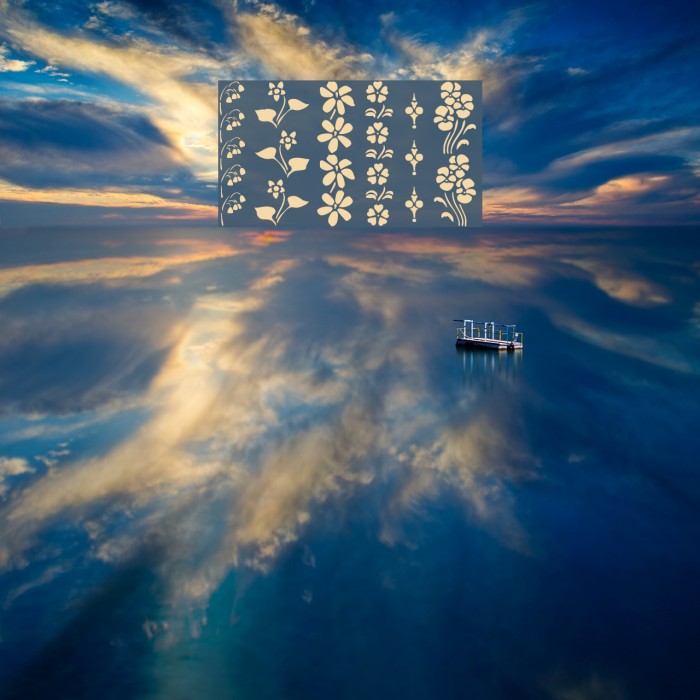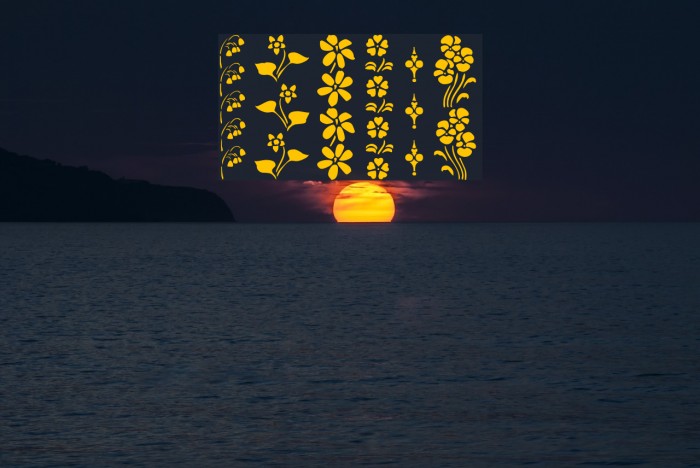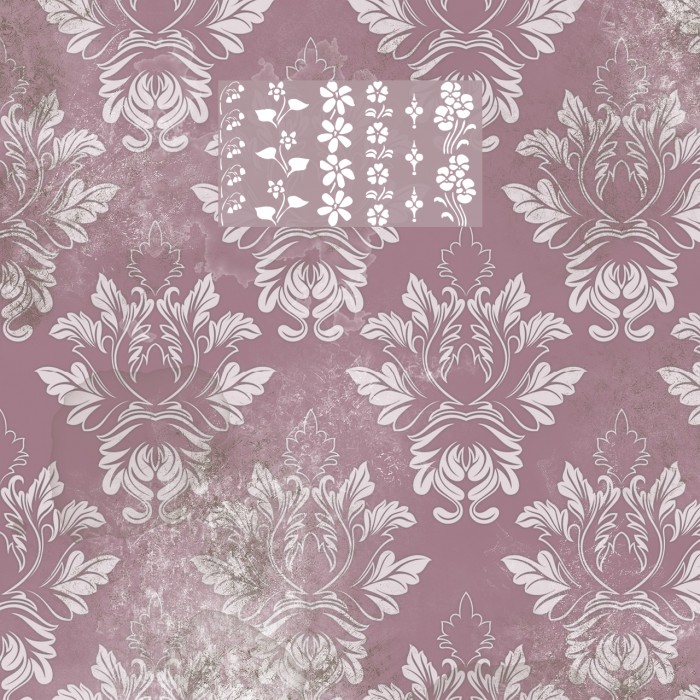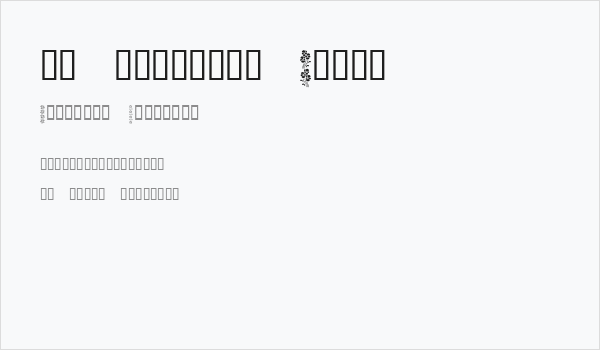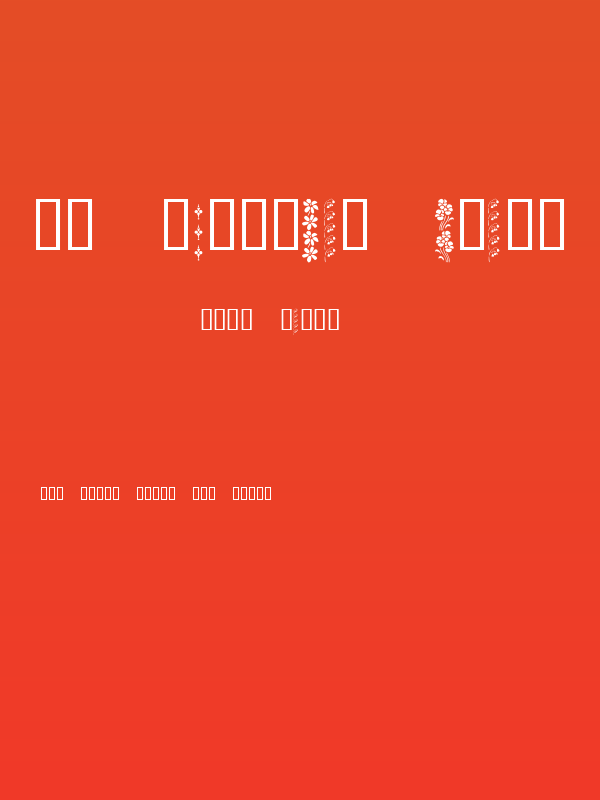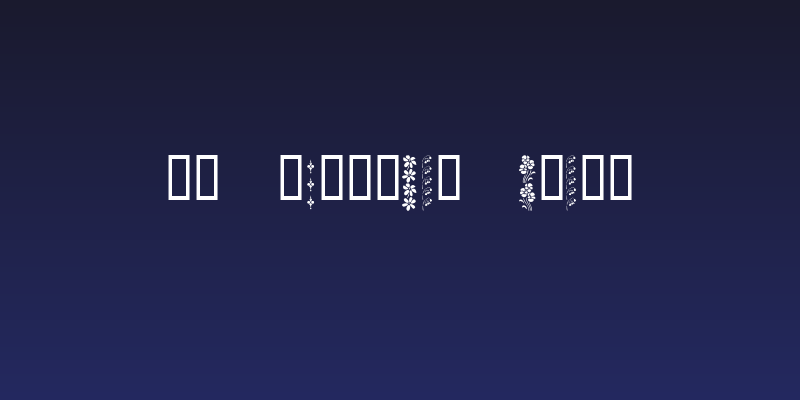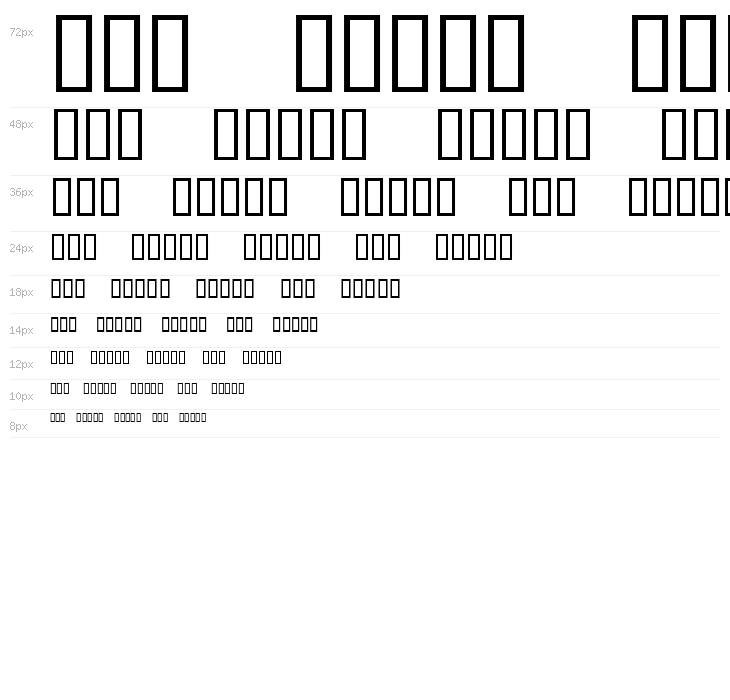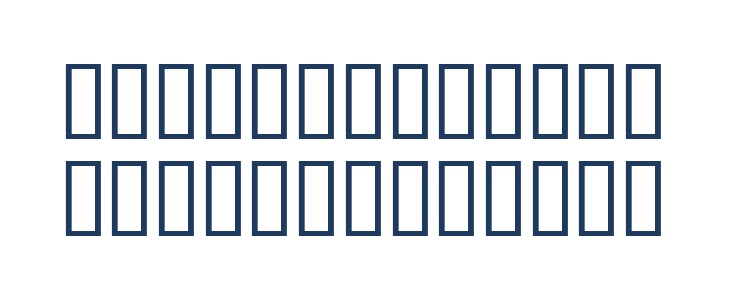
KR Vertical Flair Font
KR Vertical Flair Description
This is a decorative font featuring intricate floral designs in place of traditional alphanumeric characters. Each character is represented by a unique floral motif, creating a visually rich and ornamental style. The designs are detailed and vary in complexity, with some characters featuring simple floral elements and others showcasing more elaborate arrangements. This font is ideal for projects that require a touch of elegance and nature-inspired aesthetics. The overall appearance is artistic and can be used to add a decorative flair to various design projects.
| Use Case | Logos, Decorative elements |
| Proposed Projects | Ideal for wedding invitations, greeting cards, decorative posters, and nature-themed branding. |